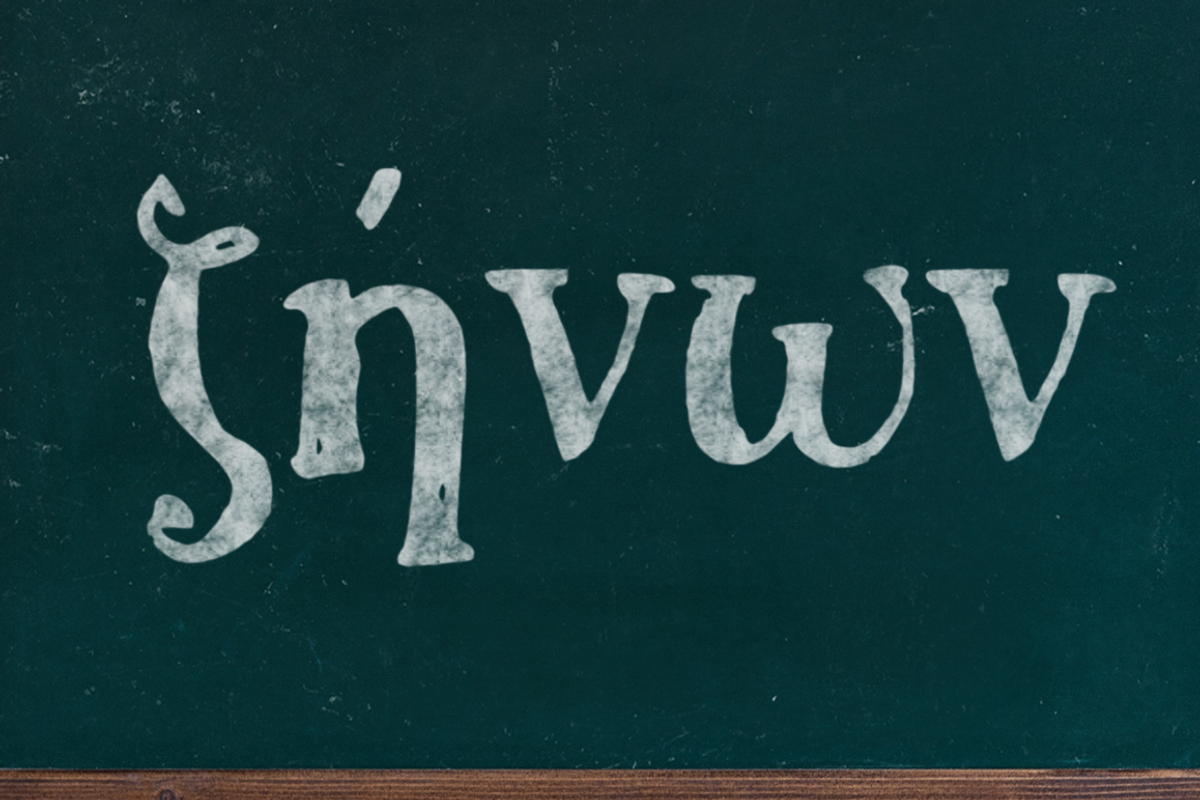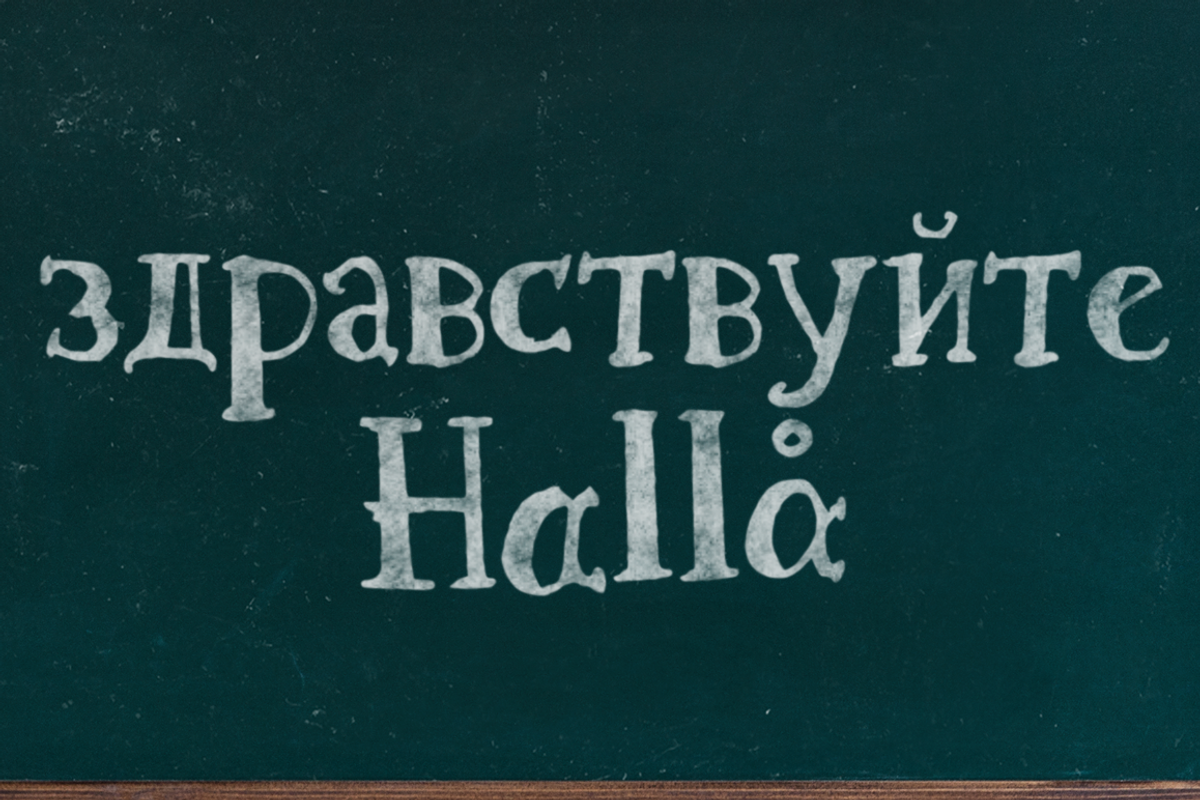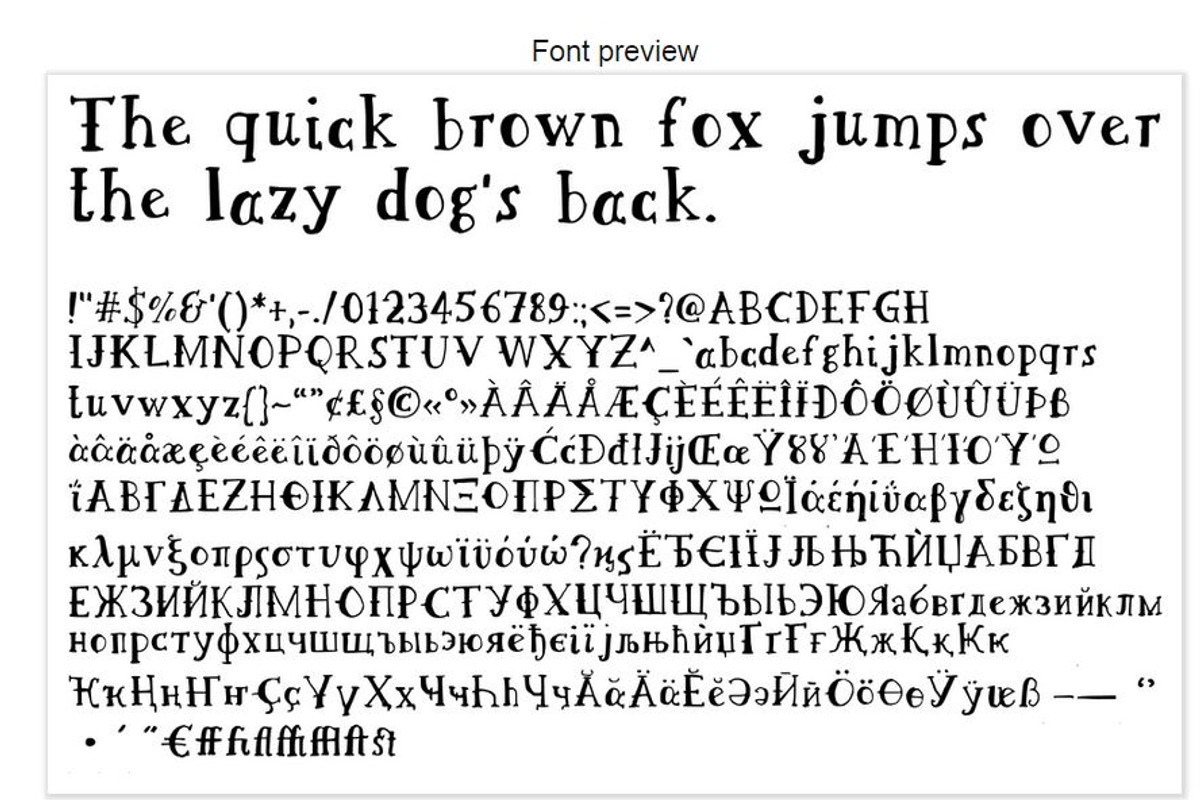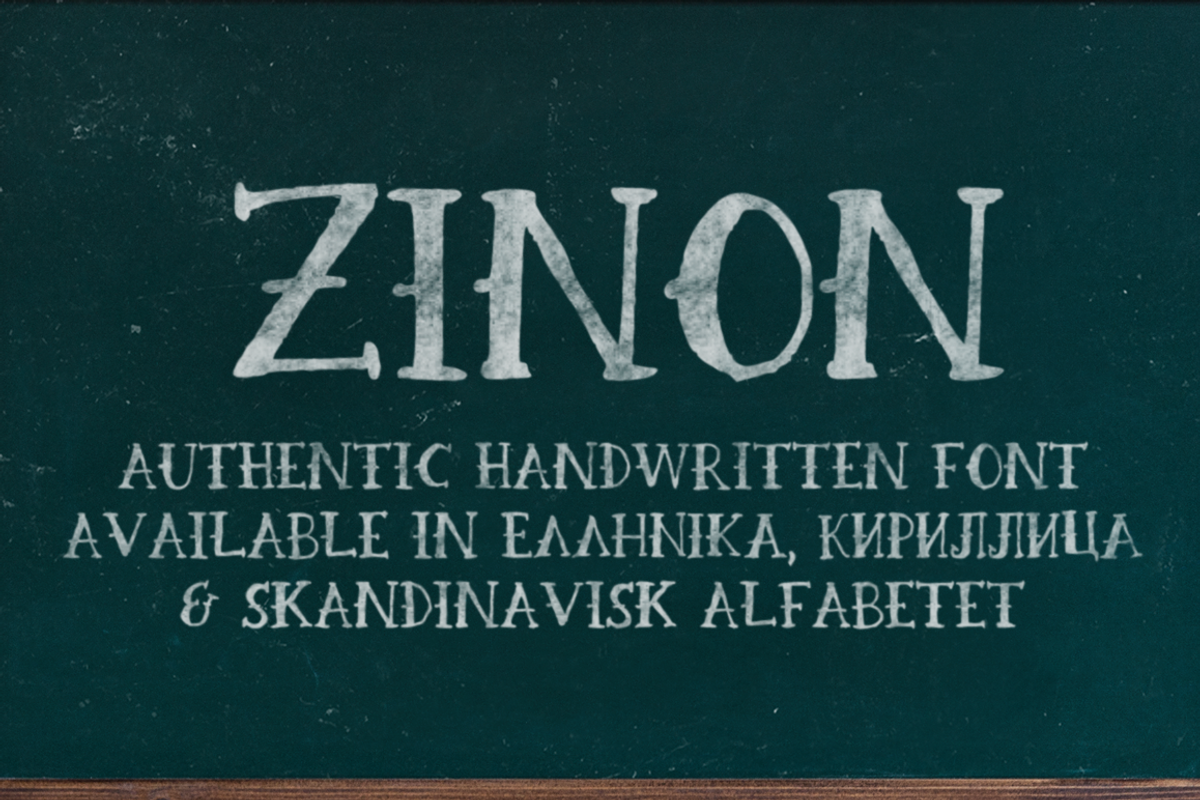
Zinon Handwritten Font
Zinon Handwritten Font by Elegrad Design Agency is a font selected for branding, posters, packaging, typography.
- Included are Zinon Regular SUPPORT FOR (see preview images) GERMAN / SCANDINAVIAN / FRENCH CHARACTERS GREEK CHARACTERS CYRILLIC CHARACTERS L
Why Zinon Handwritten Font is worth a look
Zinon Handwritten Font by Elegrad Design Agency fits naturally into Branding, posters, packaging, typography.